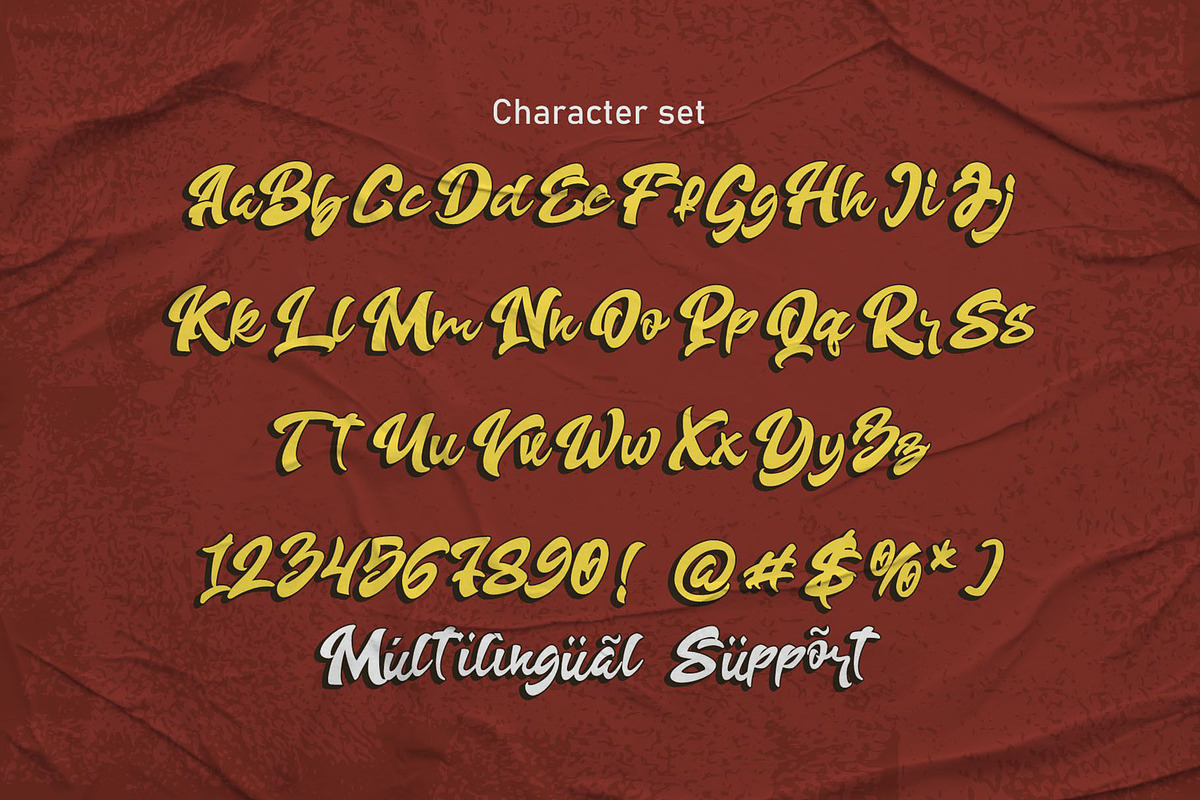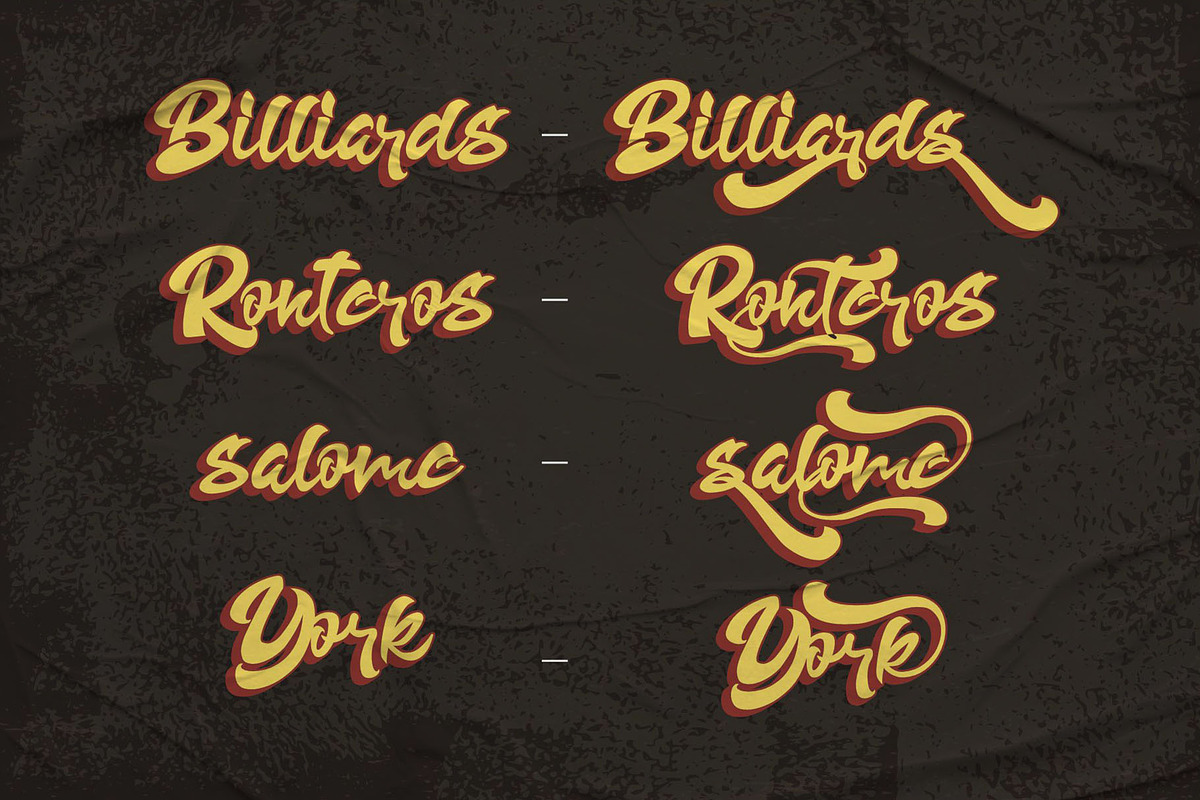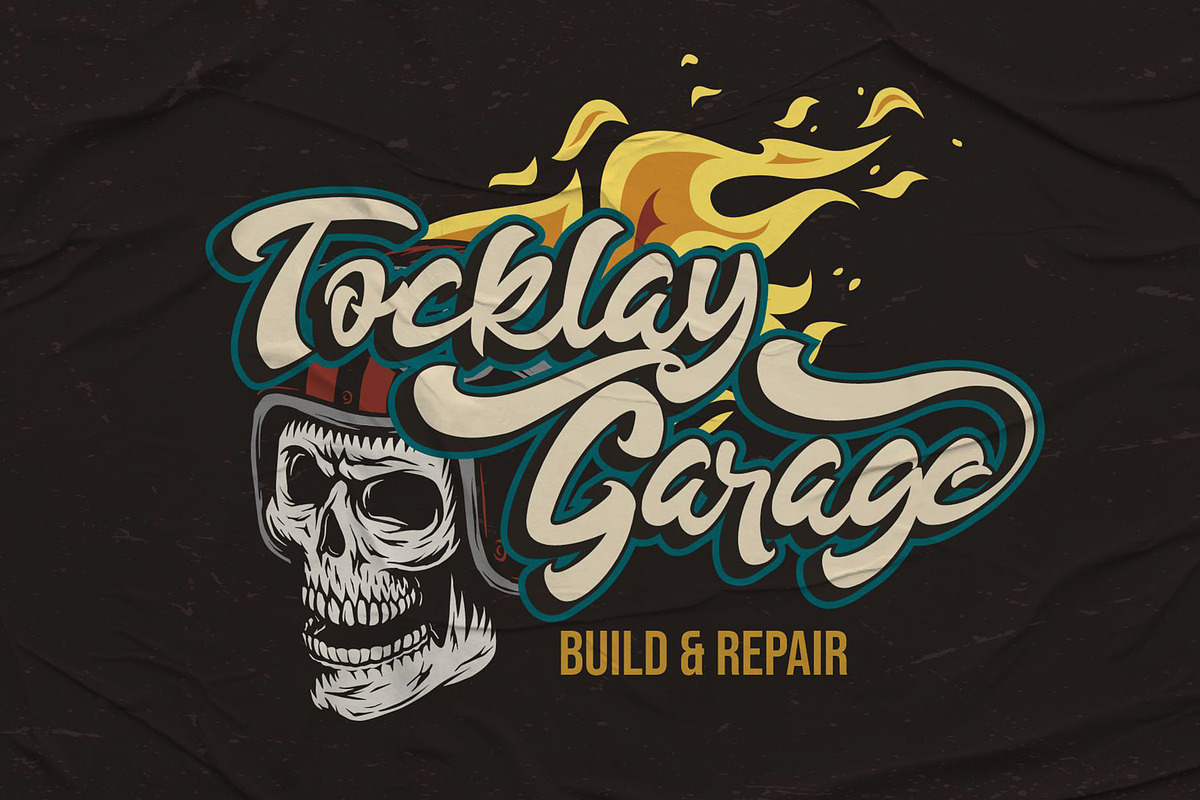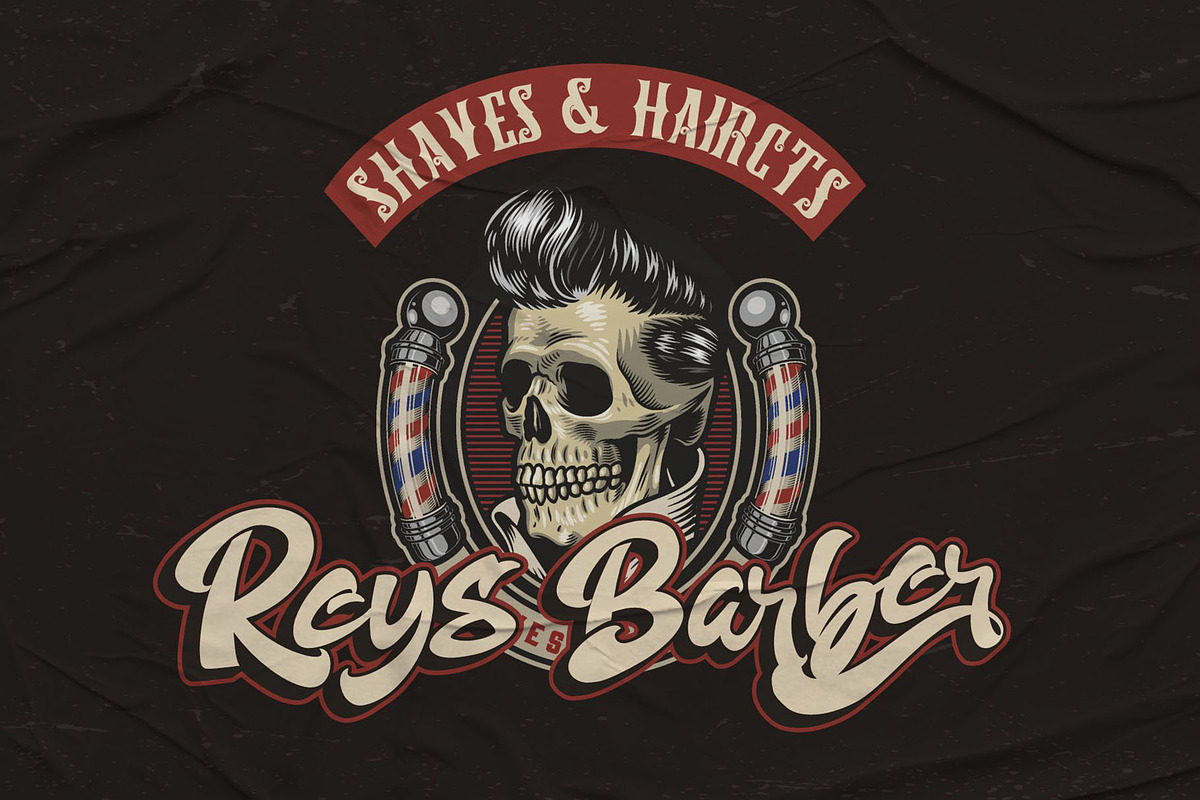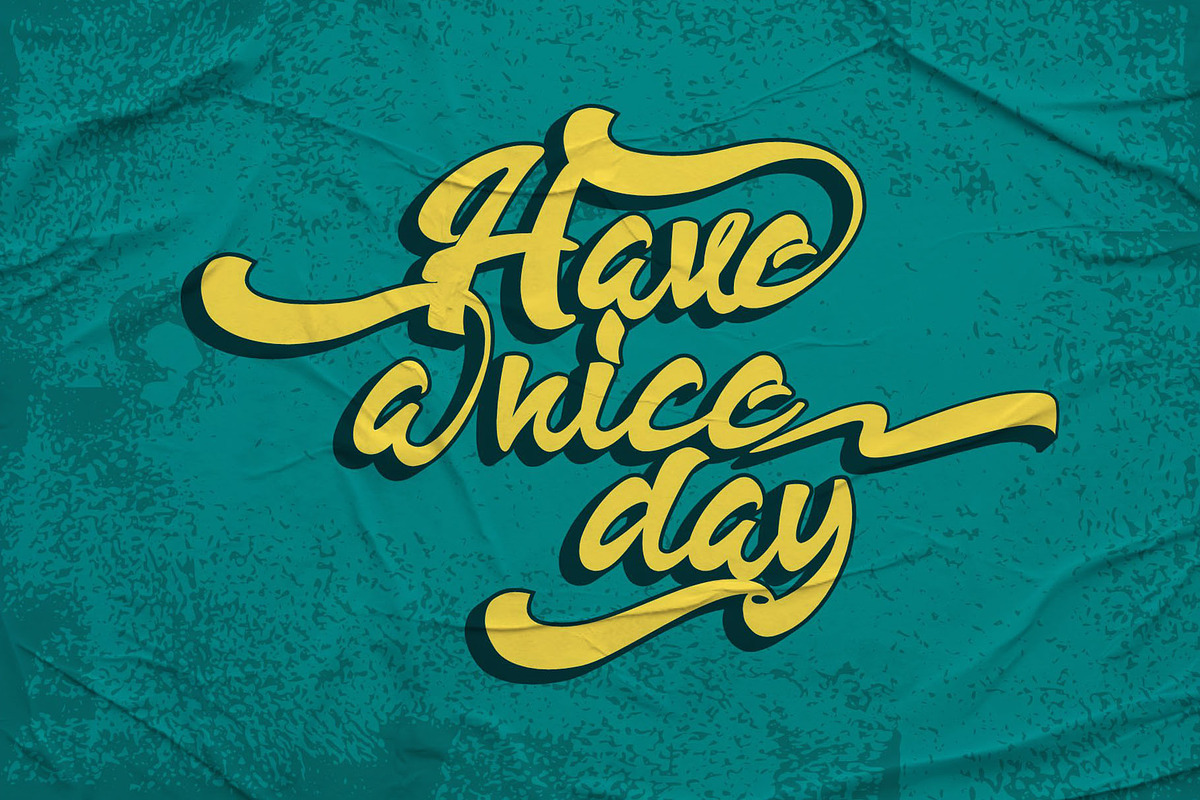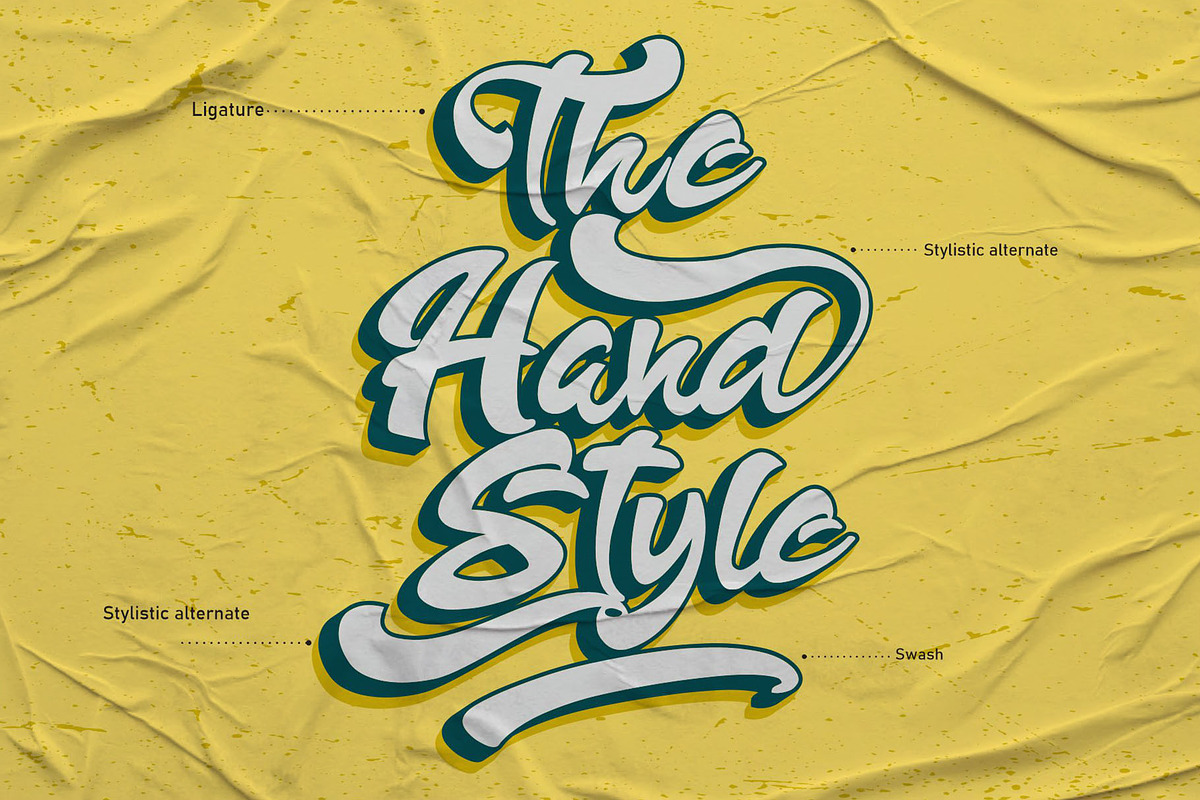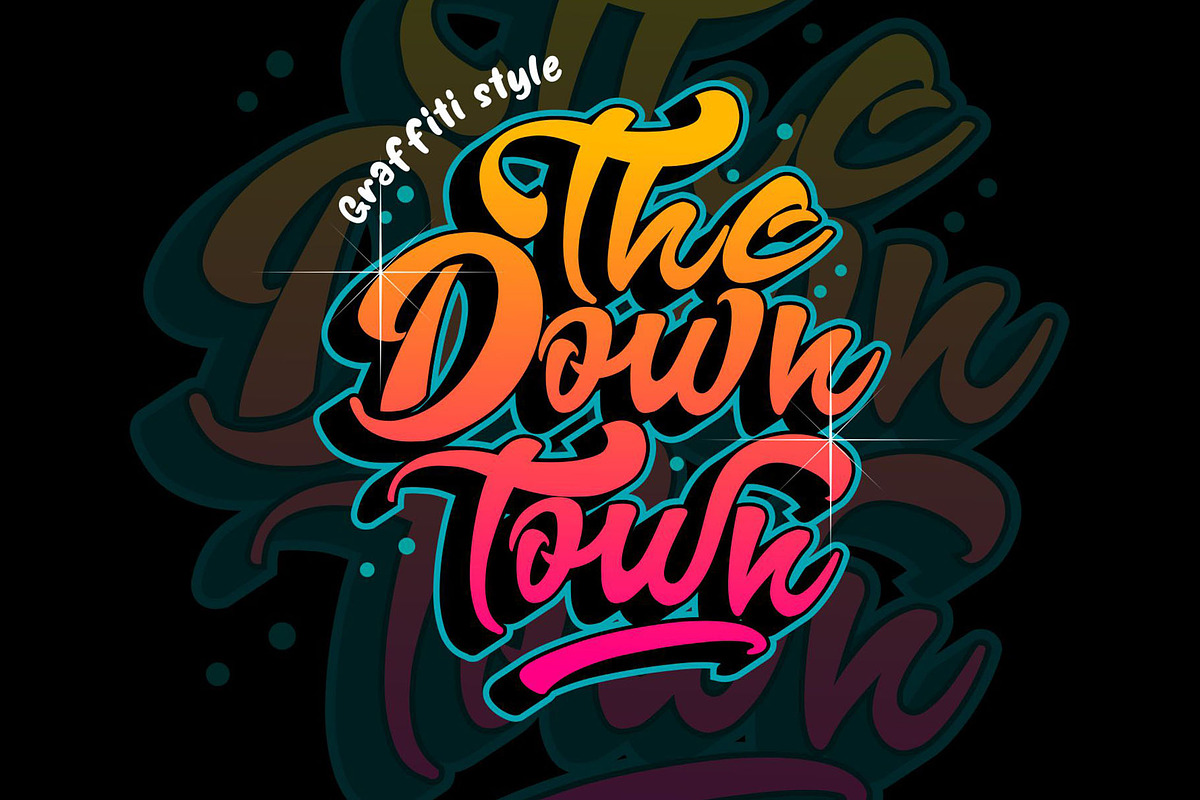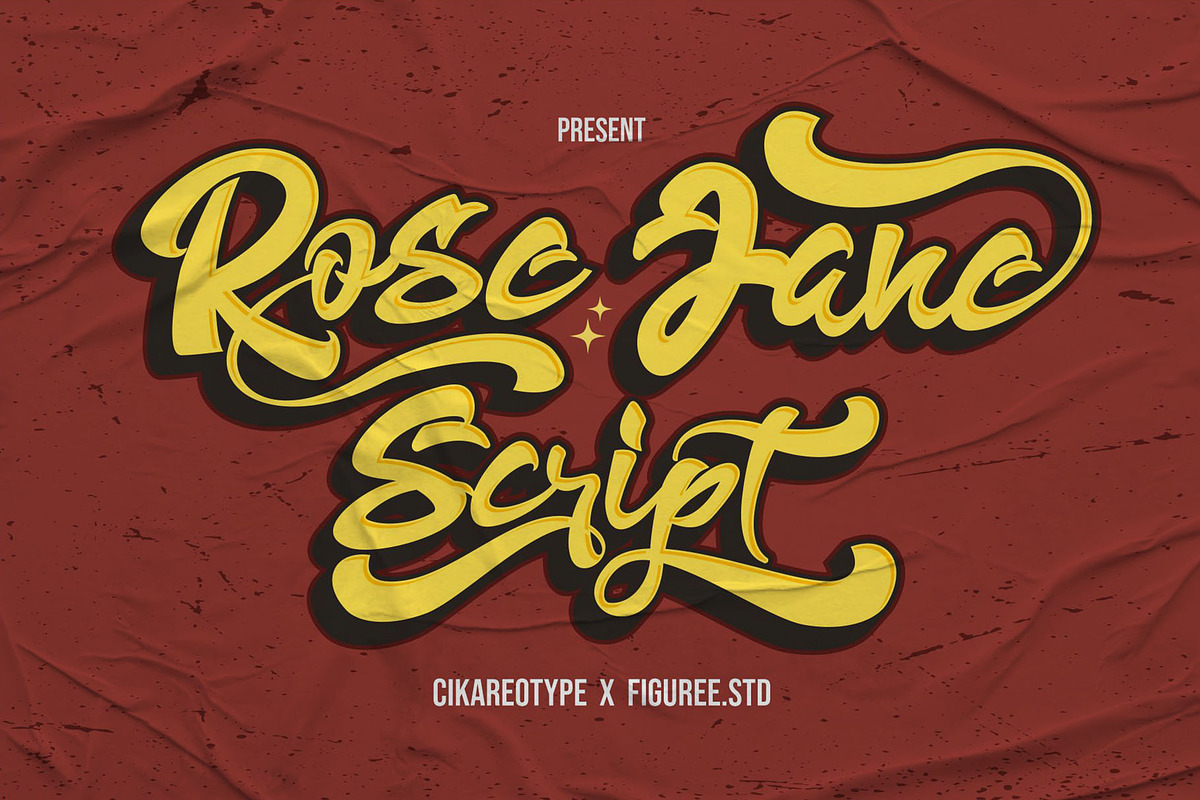
Rose Jane
Preview Text The quick brown fox jumps over the lazy dog Rose Jane script - Swash shadow Example 1 of Font Rose Jane script - Swash Example 2 of Font Rose Jane script - shadow Example 3 of Font Rose Jane script Example 4 of Font More information about this Font "Rose Jane" is a vintage-themed script font enriched with stylistic alternates and swashes to elevate your designs' impact. With its timeless and graceful style, this font adds a nostalgic touch of elegance to your projects. The stylistic alternates and swashes provide creative versatility, allowing you to personalize your typography and create designs that radiate strength and allure. Additionally, the font offers two distinct styles: regular and shadow effects, providing options for depth and dimension in your designs. From logos and branding to invitations and decorative elements, "Rose Jane" will empower your creations with a potent vintage charm.